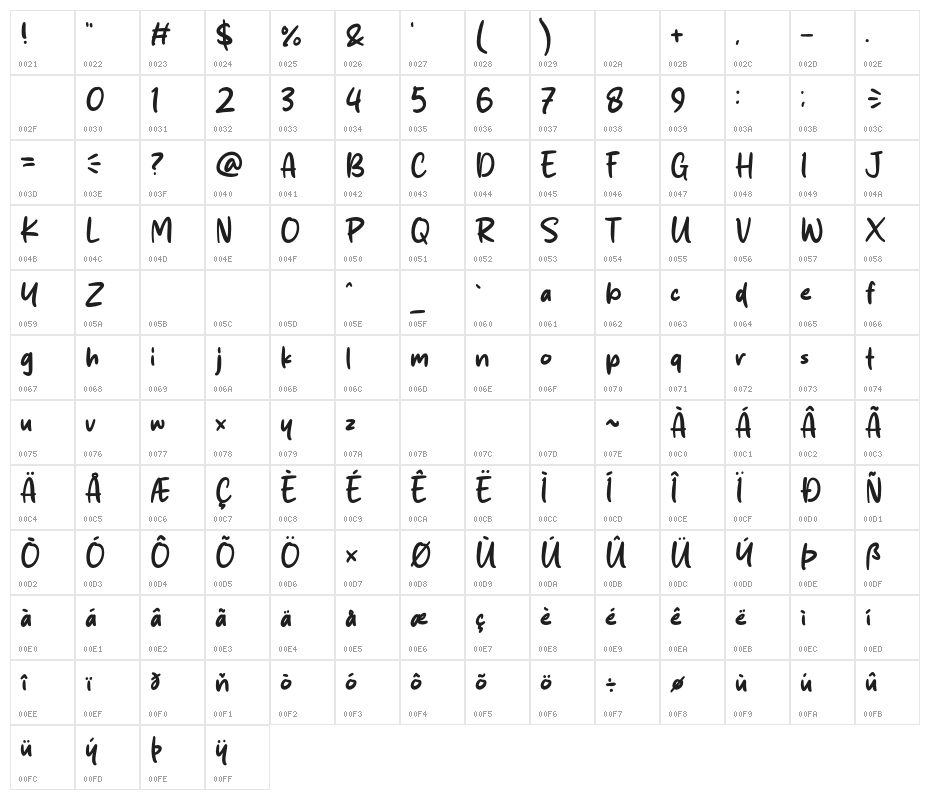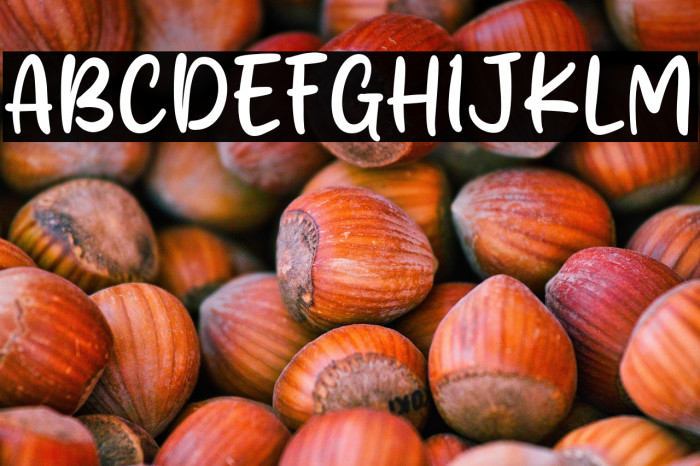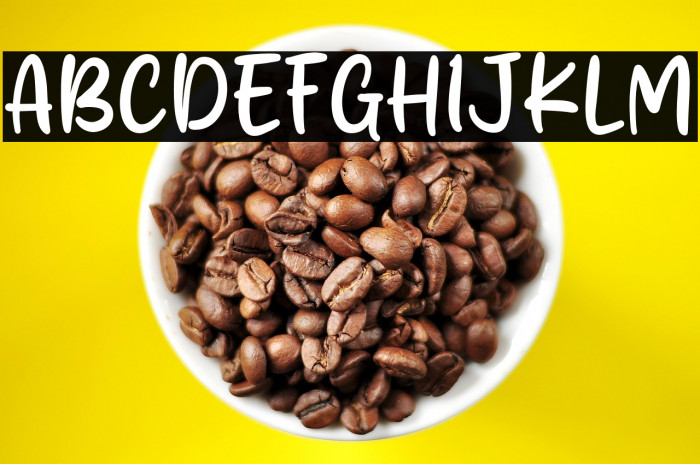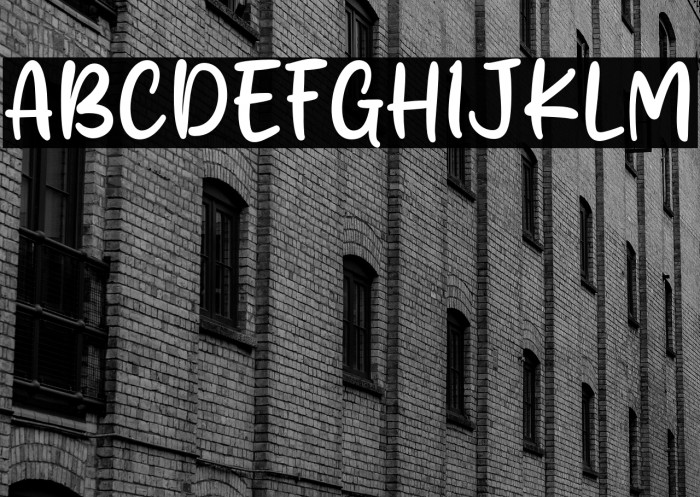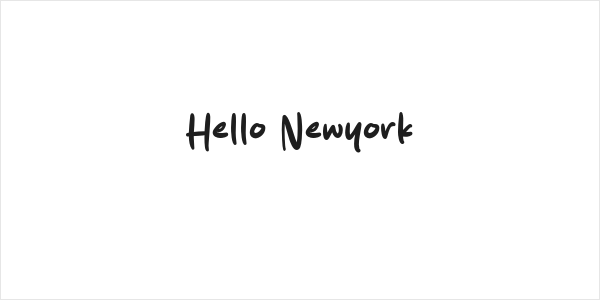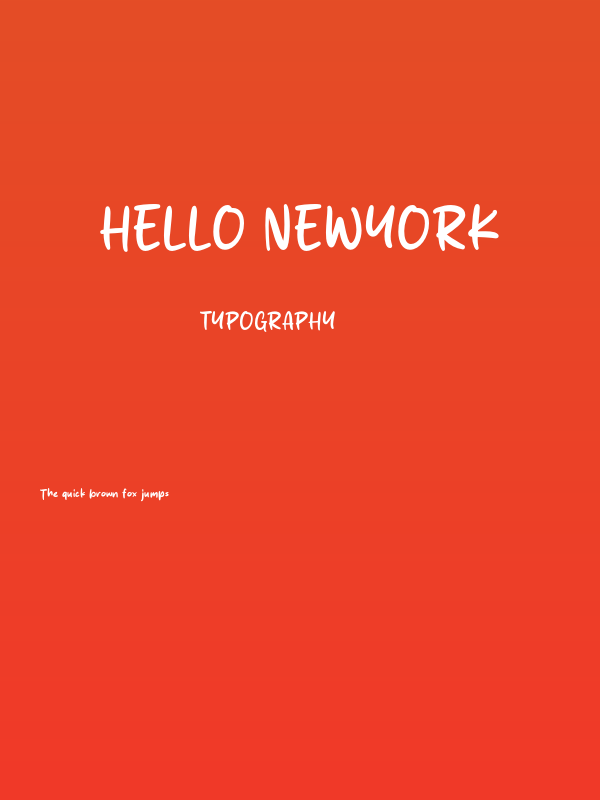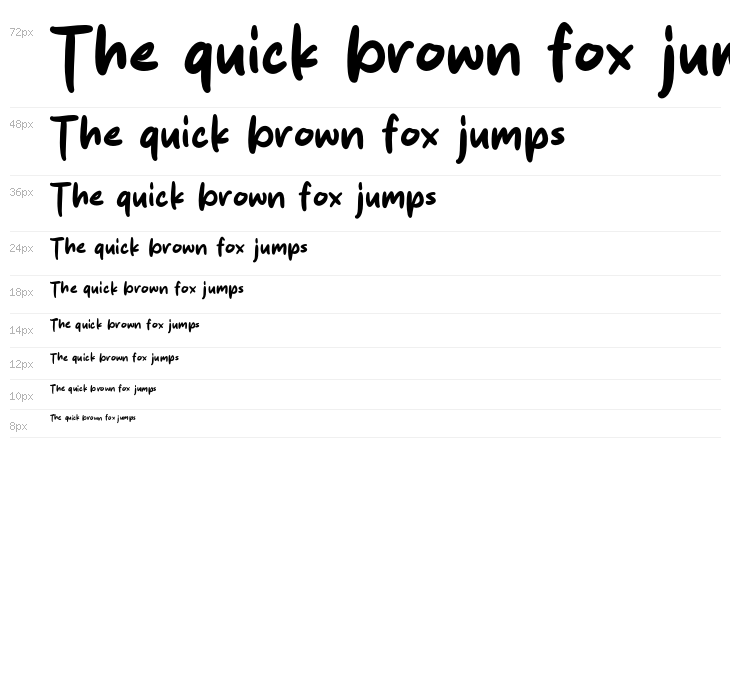
Hello Newyork Font
Hello Newyork Description
This font exudes a playful and casual handwritten style, characterized by its smooth and flowing strokes. The letters are slightly slanted, giving a dynamic and lively appearance. The uppercase and lowercase letters maintain a consistent style, with rounded edges and a friendly demeanor. The numerals and special characters follow the same aesthetic, ensuring uniformity across all glyphs. This font's informal and approachable nature makes it ideal for projects that require a personal touch.
| Use Case | Headlines, Informal text, Personal projects |
| Proposed Projects | Greeting cards, personal blogs, children's books, casual branding, and social media graphics. |